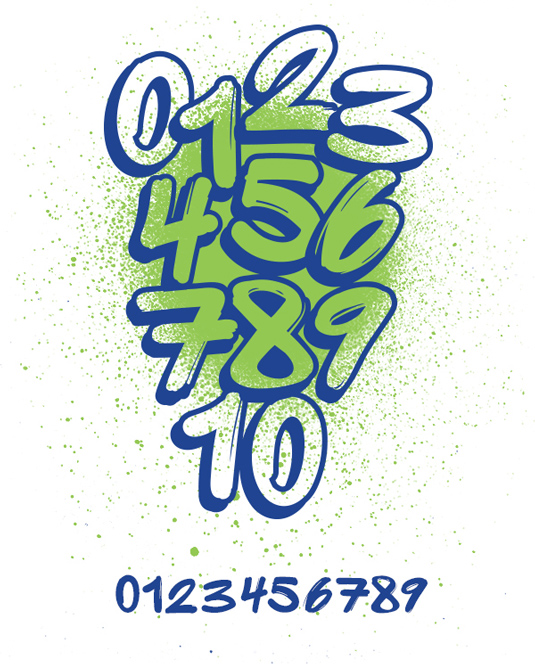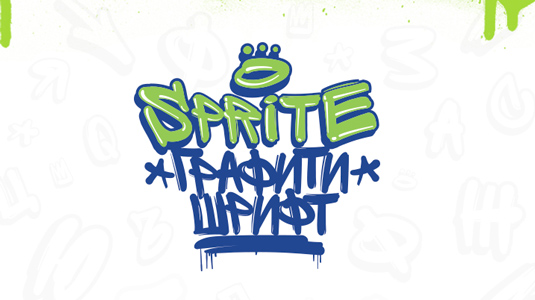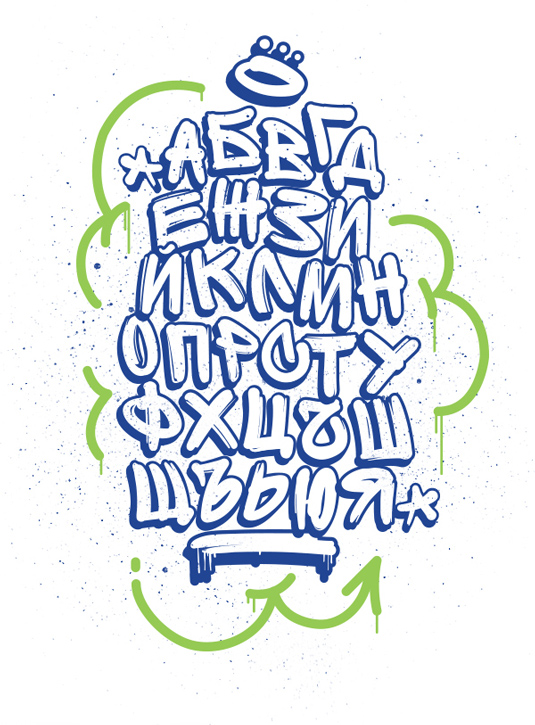
Font of the day: Sprite
Sprite by Georgi and Jelio Dimitrov
This cool, free graffiti font was created by designers Georgi and Jelio Dimitrov for the Bulgarian national holiday that celebrates the alphabet, held on the 24 May.
Dimitrov comments on Behance: "Our challenge was to keep the graffiti style and still have legible letters. We strived for a functional font that would not only be useful for the graffiti community, but also for a wider audience. This way, apart from promoting graffiti we also help build a pool of more and diverse cyrillic typefaces."